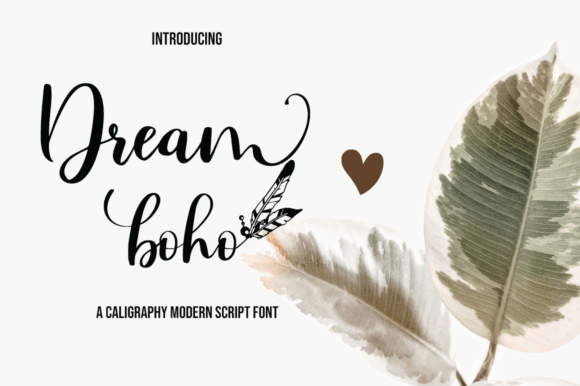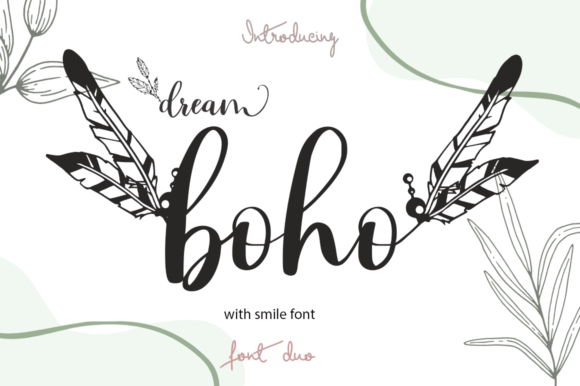
About Dream Boho Font
**”Dream Boho”** is a versatile and modern font duo that combines calligraphy and decorative elements, giving it a casual yet elegant vibe. This font duo is well-suited for a wide range of design purposes, making it a valuable choice for various creative projects, including logos, product packaging, wedding invitations, branding, headlines, signage, labels, signatures, book covers, posters, quotes, and more.
In the world of logos and branding, **”Dream Boho”** offers a unique and stylish option. Its combination of calligraphy and decorative elements allows for the creation of memorable and distinctive brand identities, making it a valuable asset for businesses and designers looking to establish a strong visual presence.
Product packaging designs become more visually appealing and distinctive with the use of **”Dream Boho.”** Its casual yet elegant vibe adds a touch of authenticity and uniqueness to packaging materials, helping products stand out on the market.
Wedding invitations designed with **”Dream Boho”** take on a romantic and artistic look. The font duo’s decorative swashes and calligraphic style enhance the overall elegance and charm of wedding stationery.
For headlines and signage, **”Dream Boho”** offers a creative and eye-catching choice. It can be used in various contexts, from digital displays to physical signage, adding a touch of style and uniqueness to your designs.
Labels and signatures created with **”Dream Boho”** have a personalized and artistic quality. The font duo’s decorative elements make your labels and signatures stand out, leaving a lasting impression.
Book covers and posters benefit from the artistic and creative qualities of **”Dream Boho.”** Its casual yet elegant style can convey the essence of a book or event beautifully.
In summary, **”Dream Boho”** is a modern font duo that combines calligraphy and decorative elements to offer a versatile and creative solution for various design projects. Its casual yet elegant vibe, along with the availability of decorative swashes, makes it a valuable tool for designers and creatives looking to add a touch of style and uniqueness to their work across a wide range of applications.